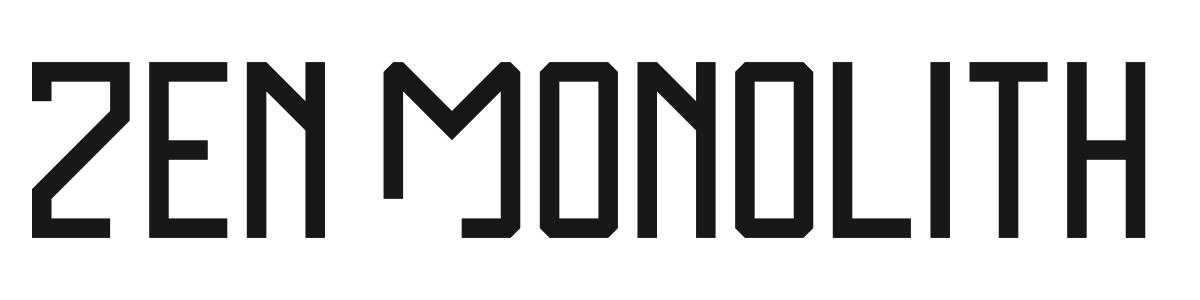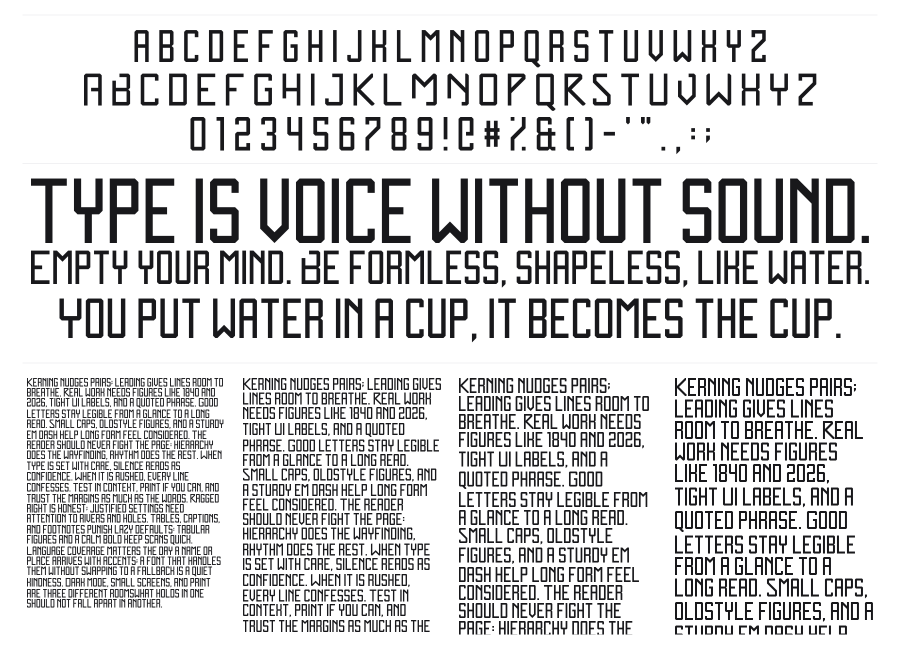
Zen Monolith
Zen Monolith is a tall, condensed geometric sans built almost entirely from squares and right angles. The strict modular construction gives it a machine-like precision reminiscent of constructivist and Bauhaus lettering traditions. Heavy weight and near-zero curves make it a strong choice for bold headlines, posters, and identity work that needs to feel solid and angular.